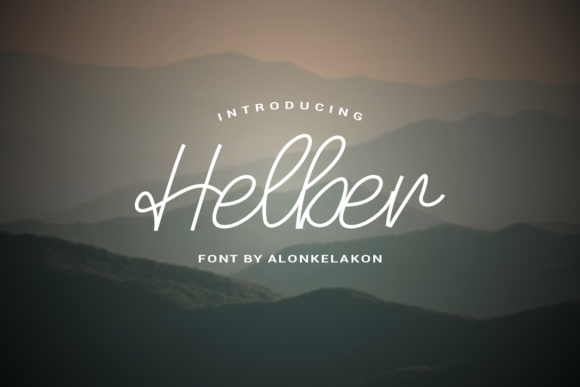
Unleash the timeless beauty and elegance of Helber Font, an extraordinary script font that exudes sophistication and charm. Crafted with the utmost care by the renowned alonkelakon, Helber is a masterpiece that brings a touch of vintage allure to any creative endeavor.
Transport yourself to a bygone era with Helber's intricate swirls, delicate curves, and graceful strokes. Each character dances across the page, evoking a sense of nostalgia and romance. Whether you're a passionate designer, a dedicated artist, or simply a lover of aesthetics, Helber is your perfect companion.
With Helber, you'll effortlessly elevate your designs to new heights. It's the ideal choice for logos, branding, invitations, posters, and any project that demands a touch of class and sophistication. Its versatility extends beyond traditional mediums, making it a remarkable choice for digital art, social media graphics, and even personal branding.
Step into a world of timeless elegance and make your designs shine with Helber Font. Embrace its captivating vintage charm and witness the transformation it brings to your creative pursuits. Let Helber be your guide as you embark on a journey to create designs that resonate with grace, beauty, and distinction.